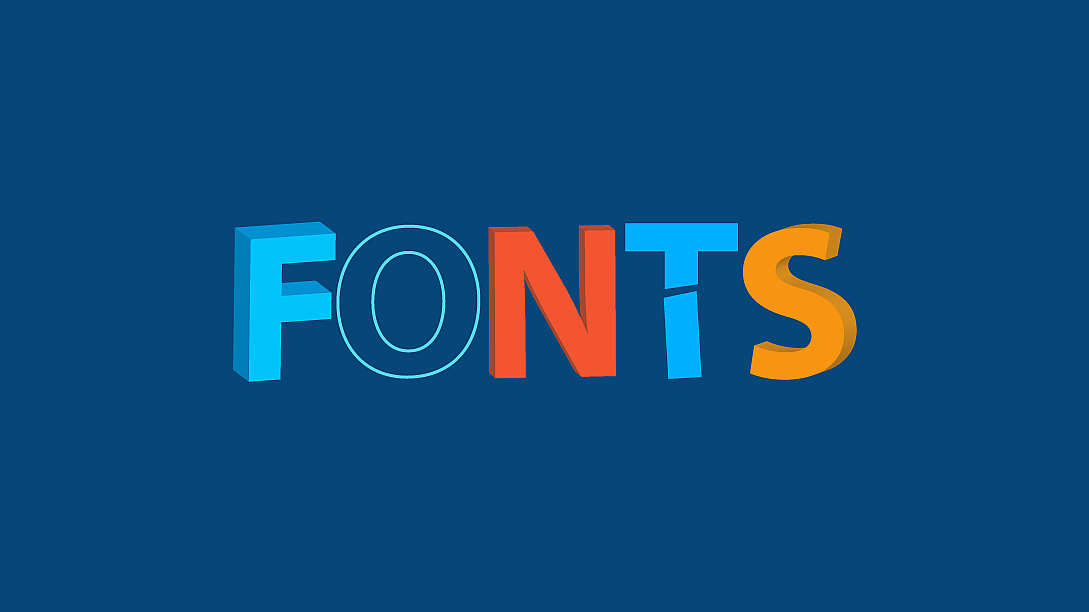
Benefits Of Custom Fonts For Websites
The Benefits of Custom Fonts for Your Website
Your website's design plays a crucial role in attracting and retaining visitors. And while many elements contribute to an effective design, typography is often overlooked. Custom fonts can be a powerful tool in enhancing your website's appeal and achieving your business goals.
Take a look at the benefits of using custom fonts for your website and how they can help you stand out in a crowded digital space.
Brand Identity
Your brand identity is how your business presents itself to the world. It's the personality, values, and beliefs that you want to convey to your audience. Custom fonts can be an effective way to reinforce your brand identity and make it more memorable.
By choosing a unique and distinctive font that aligns with your brand's values and personality, you can create a more cohesive and consistent visual identity across your website and other branding materials.
User Experience
The user experience (UX) of your website is critical to its success. UX encompasses everything from navigation to content layout to typography. When it comes to typography, using the right font can make a big difference in how your visitors interact with your website.
Custom fonts can be optimized for legibility, readability, and accessibility, which can make it easier for your visitors to read and engage with your content. By making your content more accessible and easy to read, you can create a better user experience and encourage visitors to stay on your website longer.
Unique Design
One of the biggest benefits of using custom fonts is that they can help you create a unique and memorable design for your website. With so many websites and businesses competing for attention online, it's important to differentiate yourself and stand out.
custom fonts in typography
A custom font can help you do just that. By using a unique and distinctive font that aligns with your brand's values and personality, you can create a more cohesive and consistent visual identity that sets you apart from your competitors.
Increased Engagement
Custom fonts can also increase engagement on your website. By using a font that captures the attention of your visitors and stands out from the crowd, you can encourage visitors to stay on your website longer and interact with your content more.
Custom fonts can also create a sense of personality and authenticity that can resonate with your audience and build a stronger connection with them. By creating a more engaging and memorable experience for your visitors, you can increase the likelihood that they'll return to your website in the future.
Cost-Effective Solution
Finally, custom fonts can be a cost-effective solution for your website. While it may seem like a significant investment upfront, a custom font can provide long-term value and help you save on licensing fees for commercial fonts.
Custom fonts also give you more flexibility in using and modifying the font for different projects, which can save you time and money in the long run.
Choosing the Right Custom Font
When choosing a custom font for your website, it's important to consider a few key factors.
First, make sure that the font is legible and accessible to your audience. A font that's difficult to read can create a poor user experience and turn visitors away from your website.
Second, make sure that the font aligns with your brand's values and personality. A font that feels out of place or inconsistent with your brand identity can be confusing for visitors and detract from the overall user experience.
Finally, make sure that the font is technically feasible for your website. Some fonts may not be compatible with certain file formats or may require special licensing agreements, so it's important to do your research before investing in a custom font.
Overall, custom fonts can be a valuable addition to your website design toolkit. By choosing the right font for your brand, you can reinforce your identity, enhance user experience, and increase engagement with your audience.
While it may require an upfront investment, the benefits of custom fonts can be significant and provide long-term value for your business.
In addition to the benefits mentioned above, custom fonts can also improve the overall aesthetic of your website. When you use a commercial font that is commonly used by other websites, it can make your website look generic and unoriginal.
In conclusion, custom fonts can be a valuable asset for your website. By choosing the right font for your brand and audience, you can enhance the overall user experience, improve engagement, and make your website more memorable.
While it may require an upfront investment, the long-term benefits of custom fonts can be significant and provide a competitive advantage for your business.